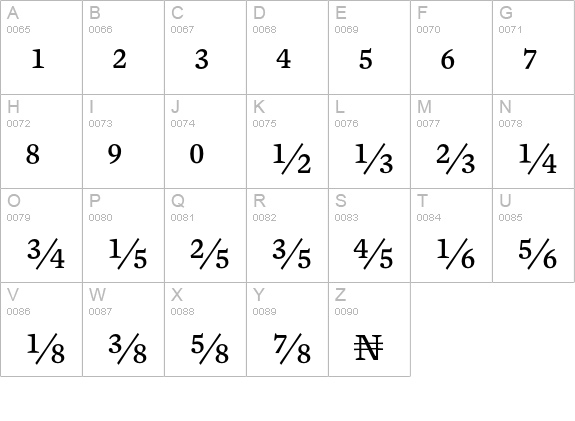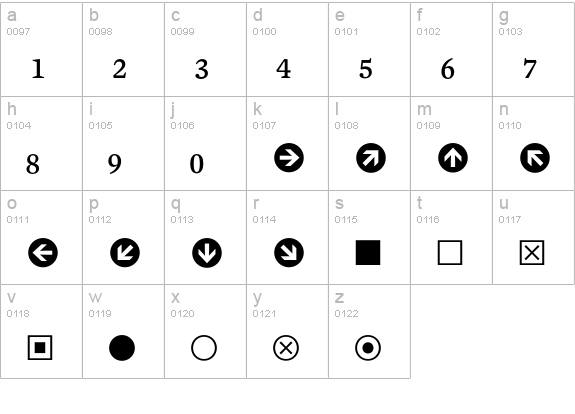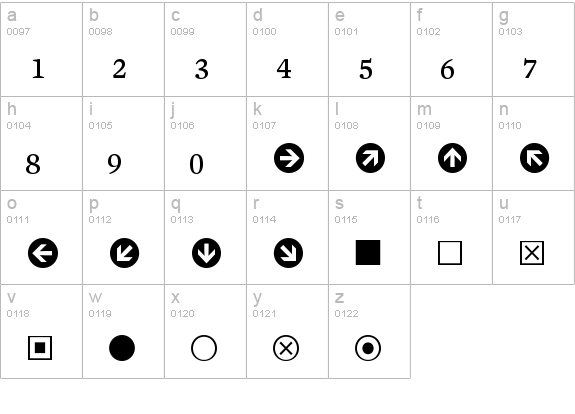
Mercury Numeric G2 Roman Font Details
Mercury Numeric G2 Roman is a classic and elegant font that exudes sophistication and professionalism. With its clean lines and timeless appeal, this font is perfect for a wide range of design projects, from business presentations to wedding invitations. The clean and crisp design of Mercury Numeric G2 Roman makes it easy to read and ensures that your message is conveyed with clarity and style. The best part is that Mercury Numeric G2 Roman is available for free download at FontsMarket.com. This means that you can easily access this beautiful font and use it in your projects without any cost. Whether you are a graphic designer looking to add a touch of class to your designs or a business professional in need of a polished font for your documents, Mercury Numeric G2 Roman is the perfect choice. Download it today and elevate your designs with this stunning and versatile font.